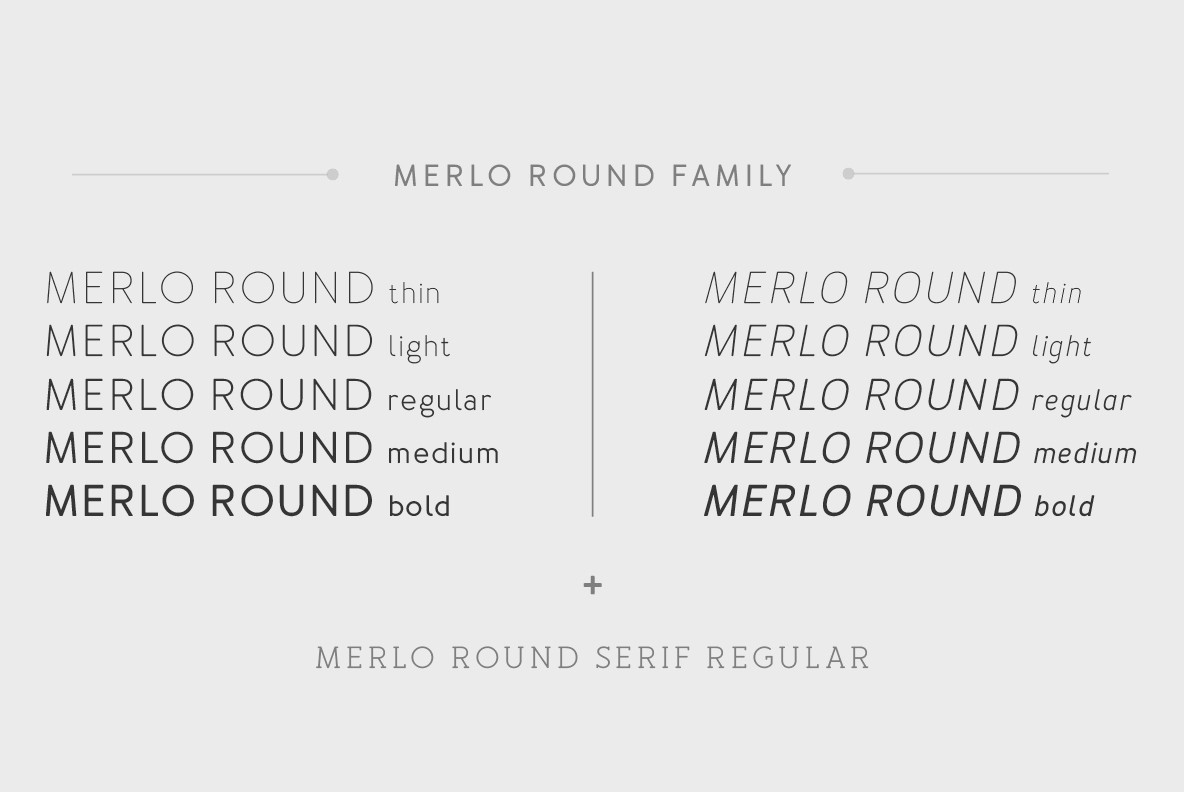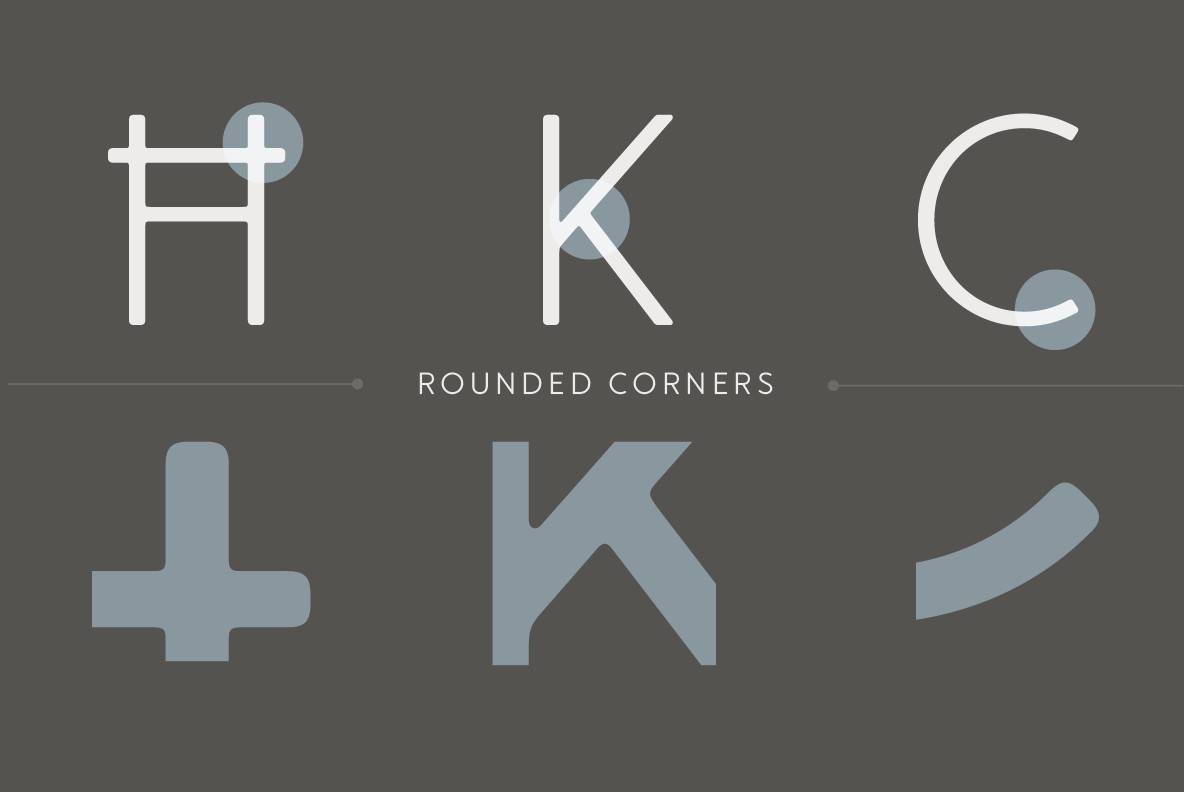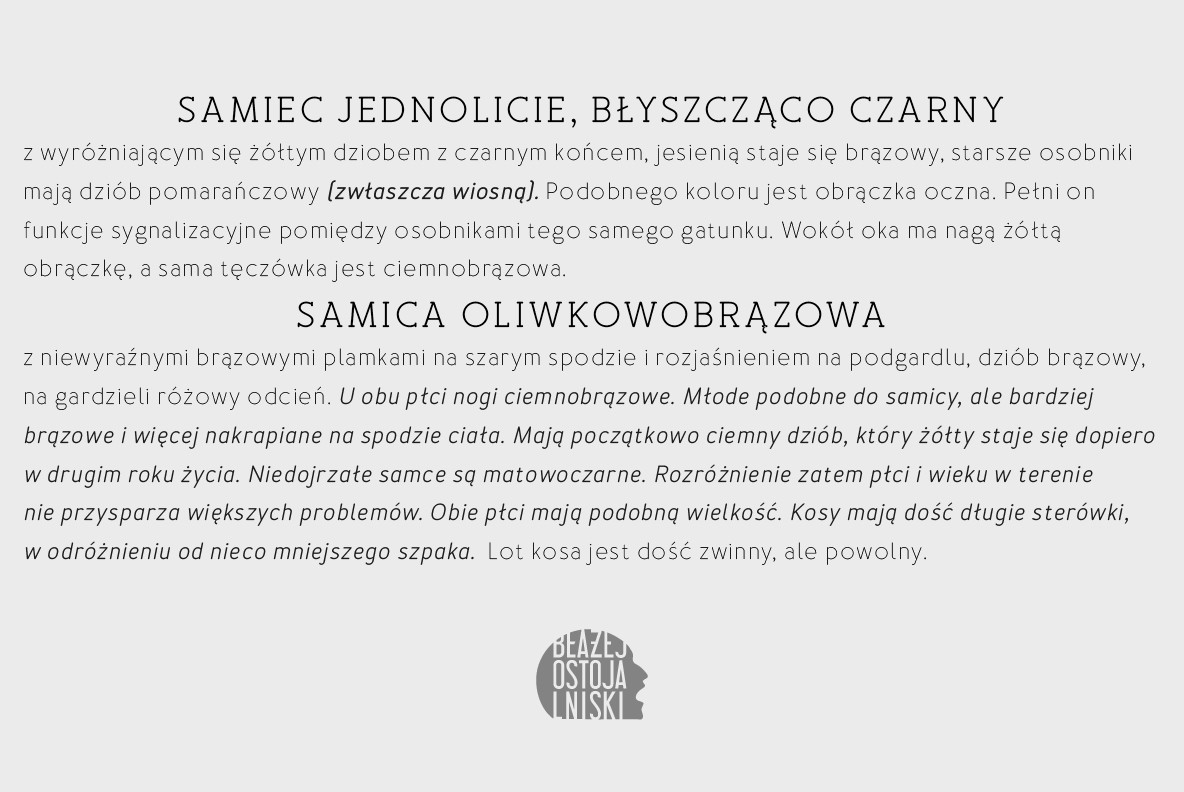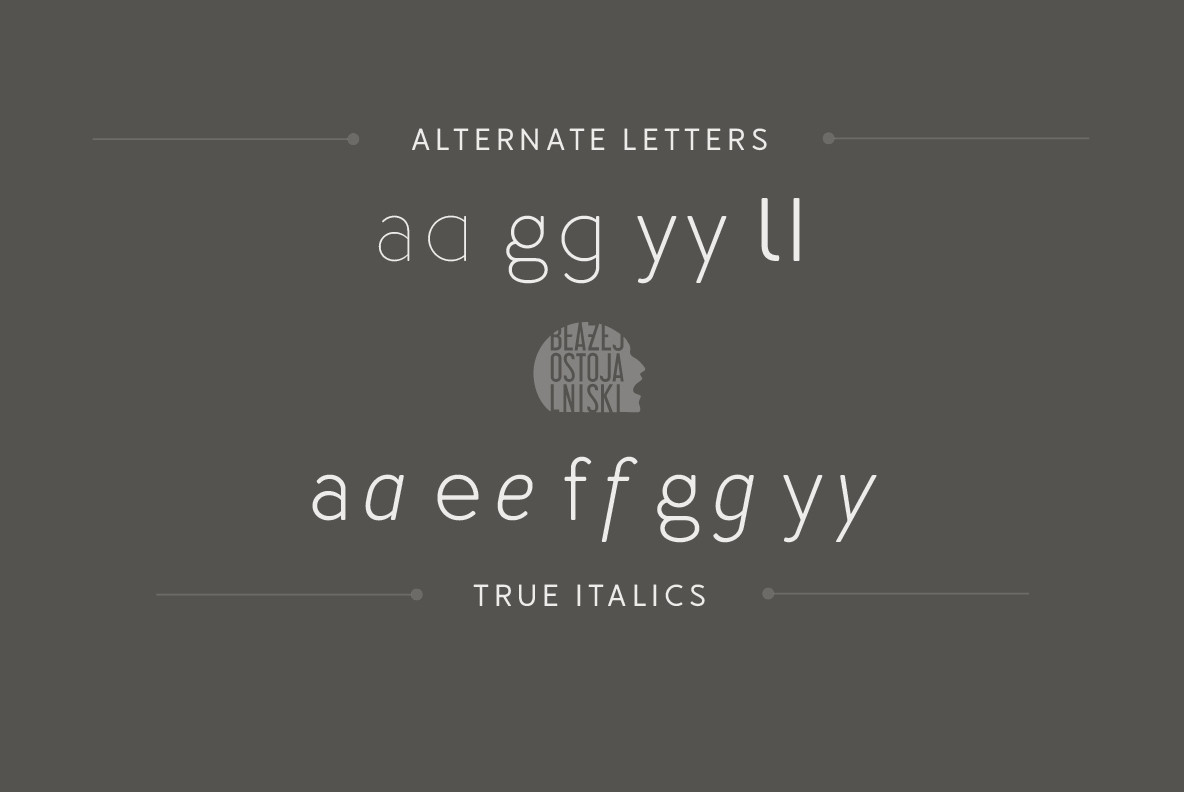
Merlo Round Font
Font Merlo Round is the younger brother of Merlo. Font Merlo Round is characterized by twelve different varieties – lower and uppercase characters. It is inspired by a You And Me Monthly published by National Magazines Publisher RSW „Prasa” that appeared from Mai 1960 till December 1973 in Poland.